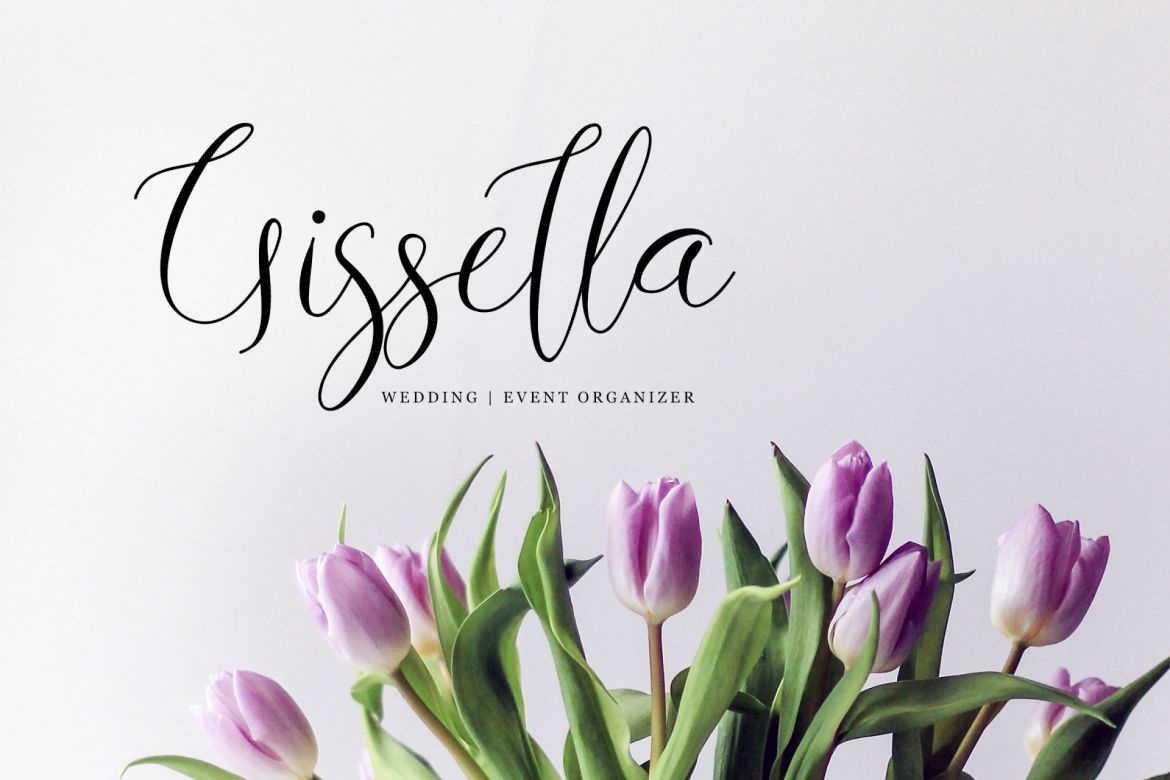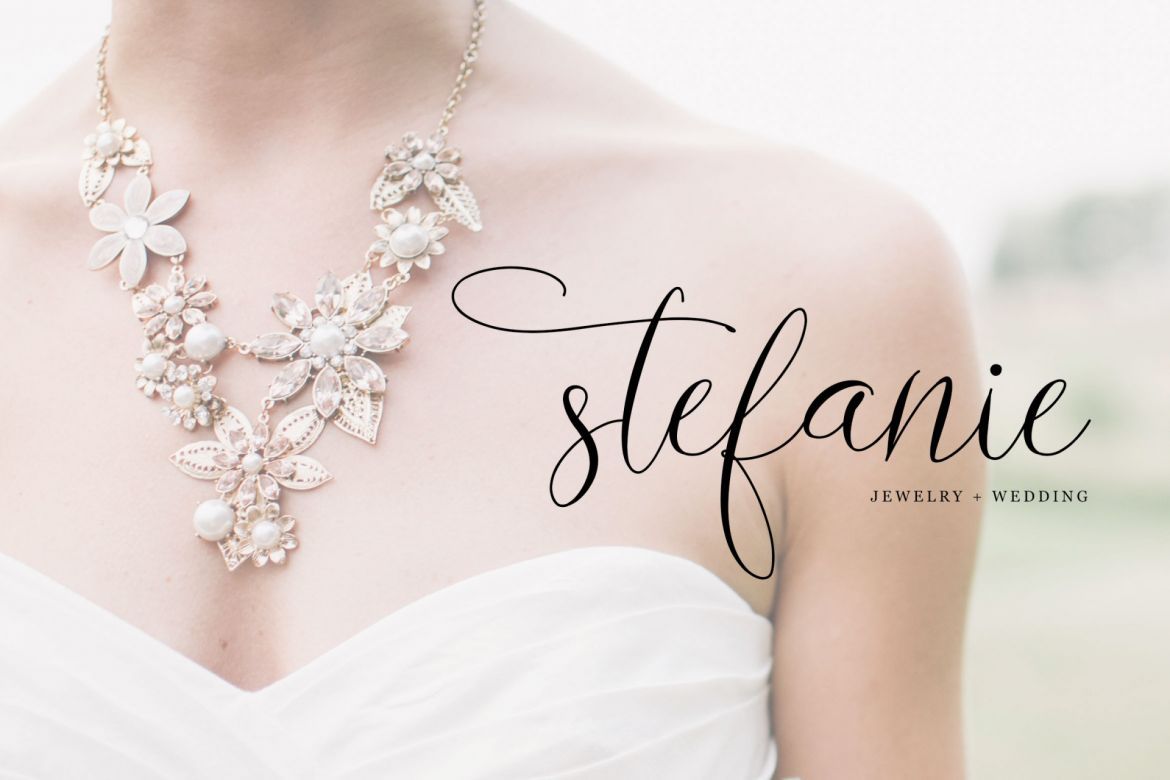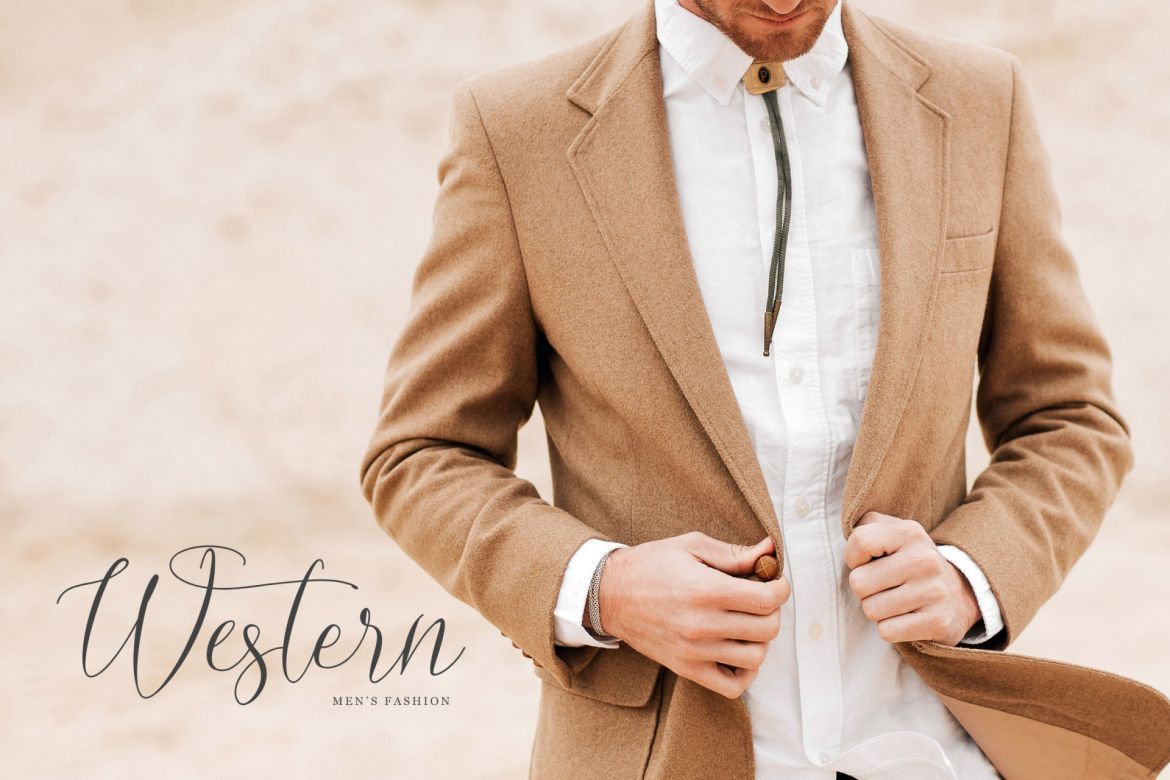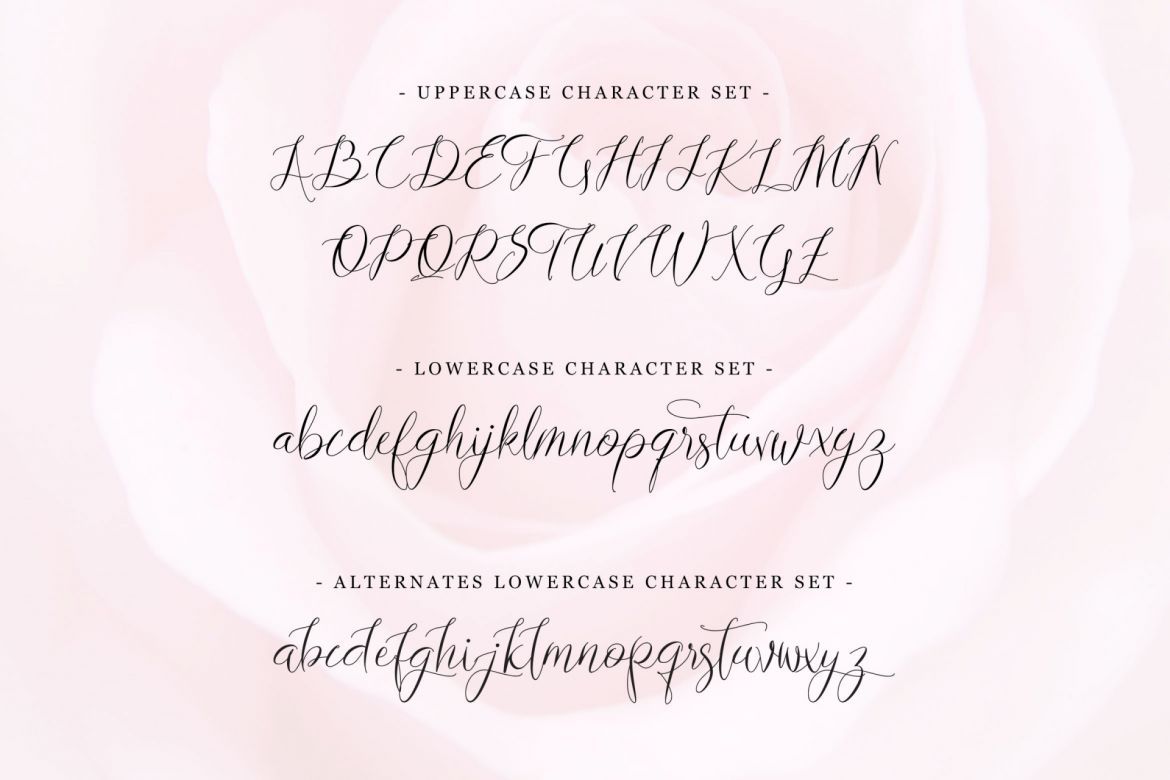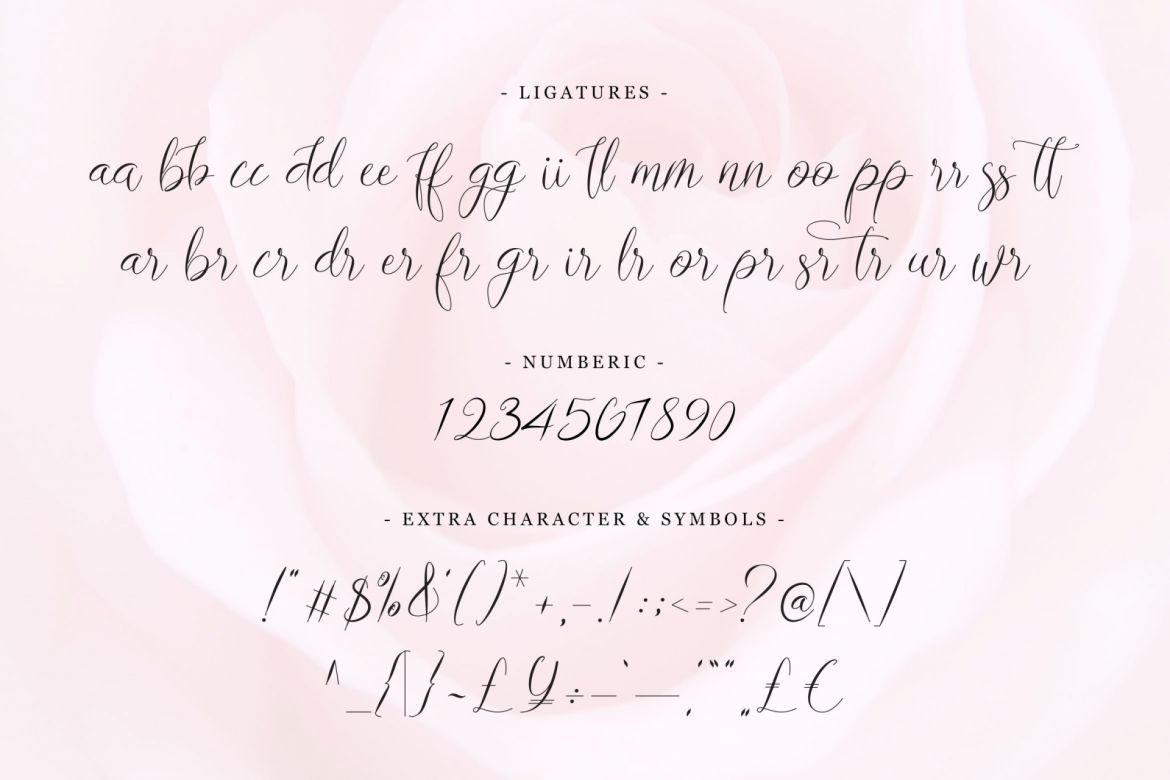
Lovestrong - Script Font
Introducing – Lovestrong Script is a beautiful and modern handwritten font script. This elegant and beautiful font is stylish and versatile so you can use in a plethora of designs in both digital and print applications.